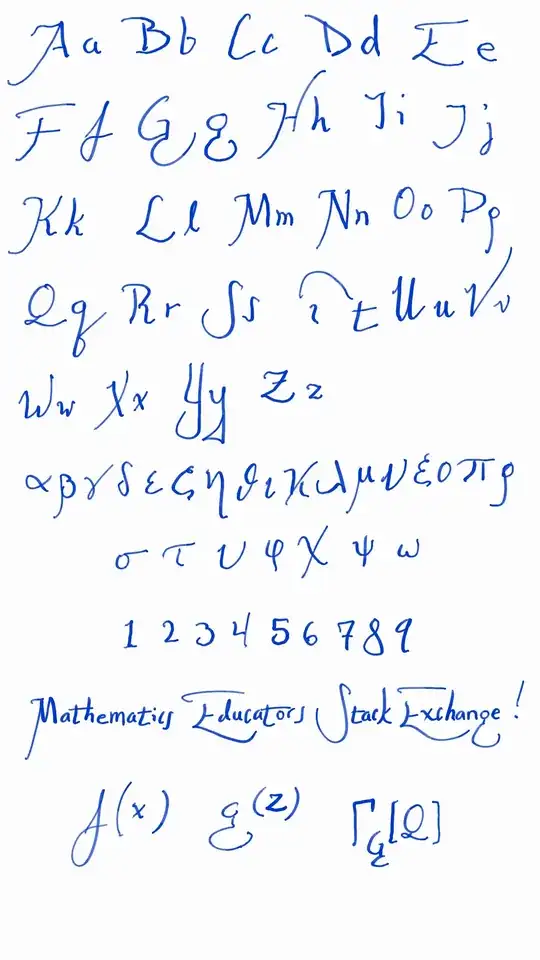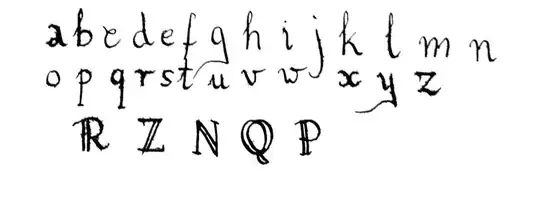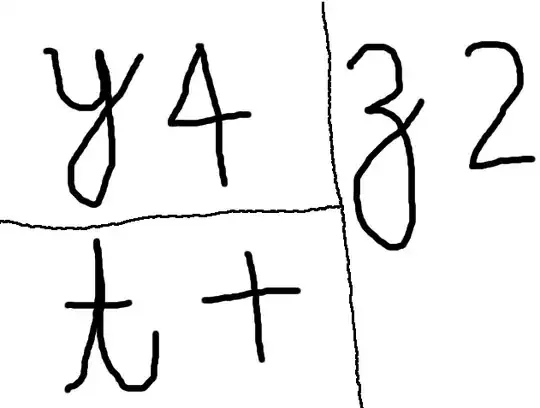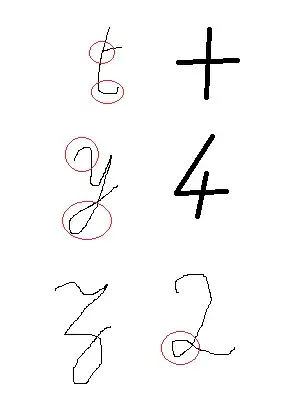
My students frequently mix up my $t$'s with my $+$'s and my $y$'s with my $4$'s.
What is a good handwriting font for distinguishing these and other easily confused symbols?
I changed my handwriting font years ago for precisely this purpose, and I have continued to tweak my letterforms over the years, using the algorithm of changing the form of whichever letters seem to generate the most confusion. Here is my current font:
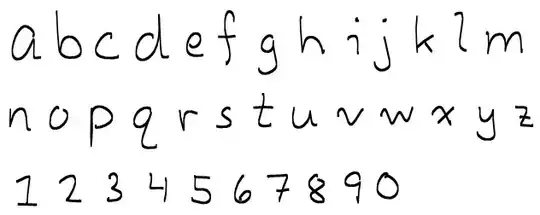
A few notes about these letters:
Capital letters aren't listed, but my experience is that they're all fairly straightforward. Just make sure to use print letters instead of cursive.
It's crucial to have versions of a, b, d, p, and q that can be written using a single stroke. If you draw your circles and stems separately, they will constantly get disconnected, which vastly decreases legibility.
I often omit the bottom "tail" on the f when writing it in the middle of a word, but I always include it when it's part of an equation. Similar statements hold for the top curve on the i. I will also draw a 1 as a simple vertical line if I think it's clear from context.
The l (ell) is my newest letter, and I'm not really sure about it yet. I tried using a cursive $\ell$ for a while, but it never looked good inside of words, and it still wasn't very legible as a variable. At present, I am often omitting the top and bottom curves when the l is part of a word.
In general, I've had bad experiences with vertical loops. I've tried loops on $\ell$'s, g's, j's, d's, and q's, and all of them seemed to make the letters less recognizable. (This is probably because such loops hardly ever appear in computer or typewritten fonts.)
The tail curve on the t is crucial to avoid confusion with a + sign.
The initial curves for the v and w are quite helpful for legibility. I also think v's and w's are more legible with relatively sharp angles, as opposed to a curvy cursive approach.
The initial curve on the x is absolutely essential. This will be one of your most used letters, and it really helps to get it right. Curves on any of the other three stems don't seem to improve legibility, and make the letter annoying to write.
I also think this curvy version of a y is easier to read than a two-sticks version. Among other advantages, it can be drawn in a single stroke, which avoids disconnection problems.
The line across the z helps avoid confusion with the number 2, and the line across the 7 helps avoid confusion with a variety of symbols.
I don't seem to be able to draw a curvy-bottom 9 that looks good. I wish I could.
This version of a 2 is much clearer than any version with a loop on the bottom.
I tried drawing a final loop on my o's for a while (like a cursive o), and it didn't work out.
Edit: By request, here are my capital letters. Unlike my lowercase letters, my capitals are really quite standard, and I don't have much to say about them. I've also included by Greek letters.
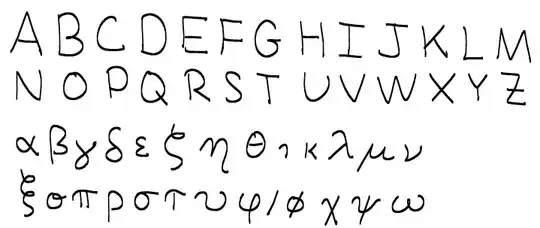
w near the centre could be done as one stroke but near the bottom needed four. Nevertheless, I still disagree with (2), my 'p' (and 'x', but I defy anyone to do a one-stroke 'x'!) is two strokes and looks better that way than done as a single stroke.
x essential? What is its purpose?
$\times\ \ +\ \ 4\quad 2\quad \omega\quad 9\quad a\quad 1\quad i\\ x\quad t\quad y\quad z\quad w\quad g\quad q\quad l\quad j$
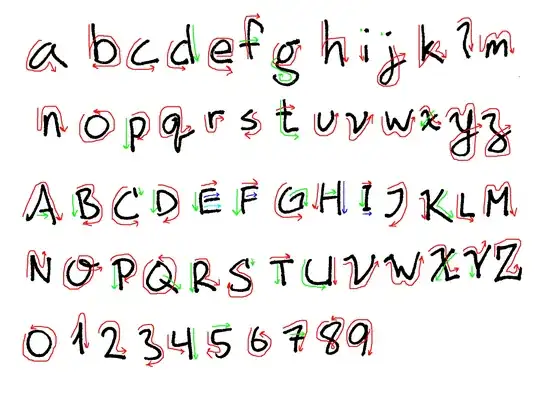
Here are what my alphabet and numbers have ended up looking like. For the sake of clarity, I've included a stroke order chart, where the first stroke is red, the second green, the third blue, and the fourth cyan.
I try to make distinctions between every character, but I agree with those above who have noted that "o" is, in general, a terrible name for a variable. I tend to only use the "O" with a flourish where I have to make a distinction between "o" and "O".
I use the double-story "g" to distinguish from "y", and "S" with a serif to distinguish from "5". I use serifs to distinguish between uppercase and lowercase ("c" and "C", "s" and "S", "k" and "K", "v" and "V", "w" and "W", "p" and "P"), but where I don't have to make that distinction, "c" and "s" get serifs to distinguish from "(" and "5", respectively.
I would like to add a point that I've not seen explicitly mentioned in the other answers. That is that context can often be your aid in clarifying your lettering. As a trivial example, no one is going to misread they as +hey. So the "special alphabet" is primarily for mathematics in your lectures. (That said, you should cultivate a clear hand writing for normal text but it doesn't need to be as extreme as for the mathematical part.)
Similarly, if you never write $\times$ then the students will soon realise that x means $x$ and not $\times$. And I doubt that someone will mistake $x_k$ or $\vec{x}$ for $\times_k$ or $\vec{\times}$.
We have X, x, χ, and ×, and writing them normally would be confusing. Add a hook to X, make x like two parentheses curved more and joined, χ like in slanted Times New Roman, and × small. We also have t and +. Add a hook to t and make + small.
And that's all!
Preview of all of the letters:
Latin Lowercase:
Latin Uppercase:
Greek Lowercase:
Greek Uppercase:
Numbers:
Others:
Common Variations (Original in CYAN, Alternates in YELLOW):